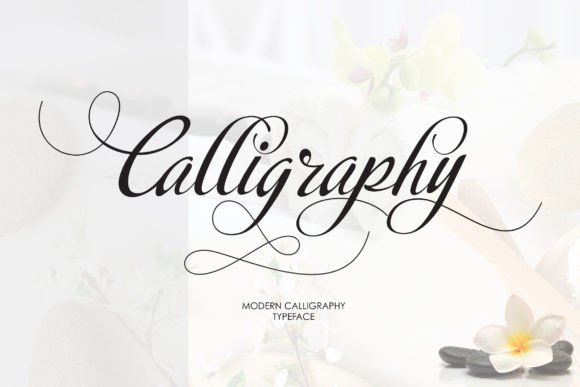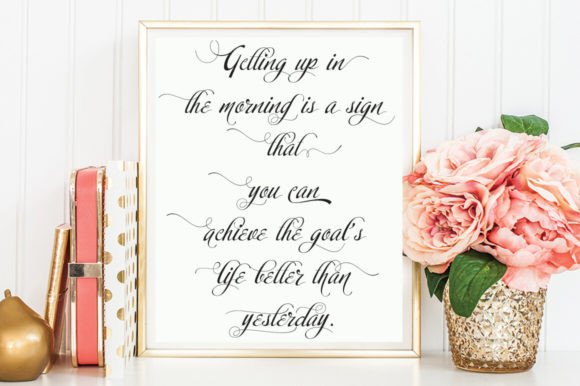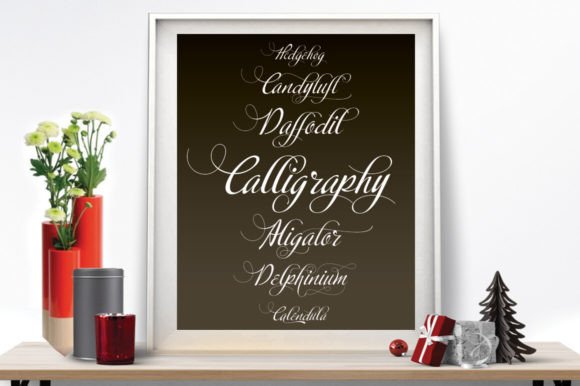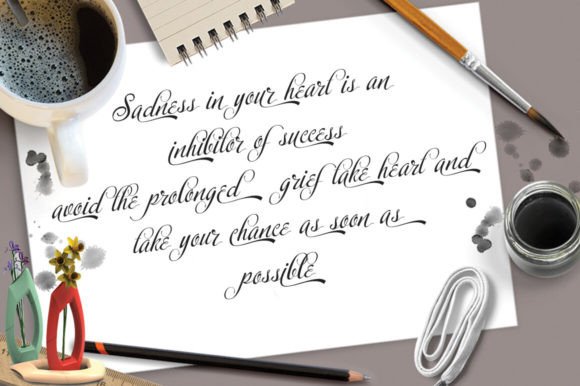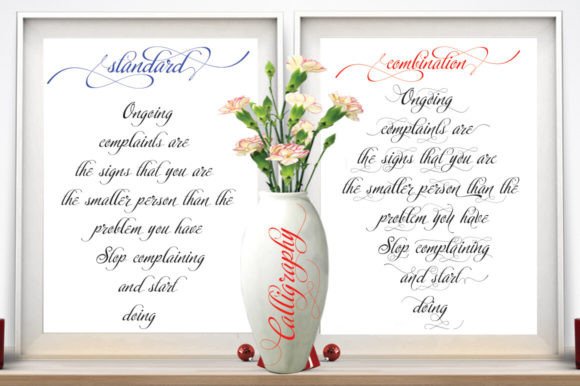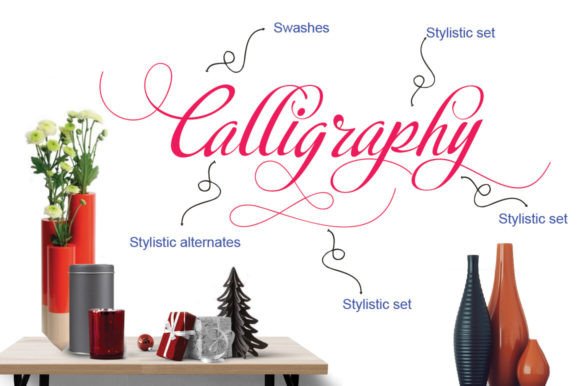
The Art of Elegant Design: Introducing Calligraphy Font
Have you ever stared at a beautifully crafted invitation, mesmerized by the flowing script that seems to dance across the page? That’s the magic of Calligraphy Font, a handcrafted script designed to add a touch of sophistication to your next design project. Whether you’re a seasoned designer or a creative enthusiast, this elegant font is sure to captivate your audience.
Calligraphy Font is more than just a font – it’s a tool to help you convey your message in a unique and memorable way. With its smooth, modern, and classic lines, it’s perfect for a wide range of applications, from wedding invitations to business correspondence. As a designer, you’ll appreciate the versatility and creativity that Calligraphy Font offers, allowing you to elevate your designs and make them truly stand out.
Key Features of Calligraphy Font
- Unique Characteristics: Calligraphy Font is designed to mimic traditional hand-written calligraphy, with elegant and flowing letterforms, subtle flourishes, and precise attention to detail.
Calligraphy Font Review
Overall, I think the Calligraphy Font is a lovely addition to any design project. ✨ The elegant, cursive script is perfect for creating a sophisticated and luxurious feel. It’s great for use in wedding invitations, branding, or any other design where you want to add a touch of elegance.
- ✨ Elegant and cursive script that adds sophistication to any design
- ✨ Perfect for wedding invitations, branding, or any other design where you want to add a touch of elegance
- ✨ Comes in a variety of styles and weights, making it versatile for different design needs
However, there are a few limitations to consider. ⚠️ The font can be quite busy, making it difficult to read at small sizes. Additionally, the script can be a bit inconsistent, which may make it challenging to achieve a uniform look.
- ⚠️ Can be busy and difficult to read at small sizes
- ⚠️ Script can be inconsistent, making it challenging to achieve a uniform look
Overall, I think the Calligraphy Font is a great choice for designers who want to add a touch of elegance to their projects. While it may have some limitations, it’s definitely worth considering for the right design.